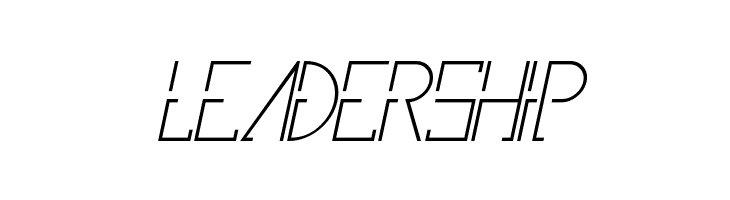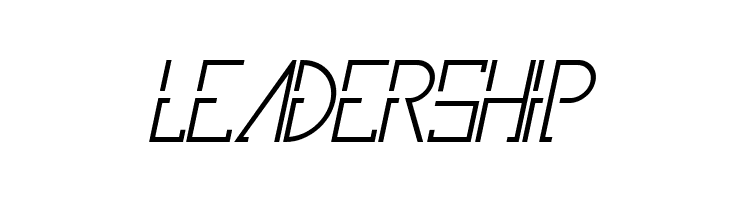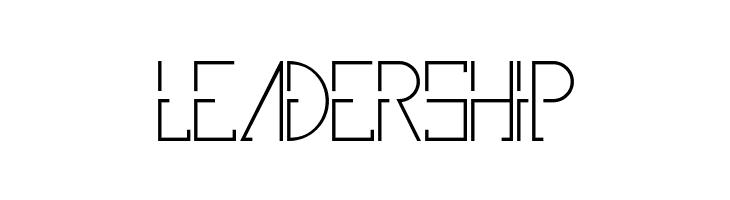
A modern, geometric font with sharp, italicized characters.
A geometric, modern font with thin, clean lines and a futuristic aesthetic.
A thin, italicized font with a modern, geometric style.